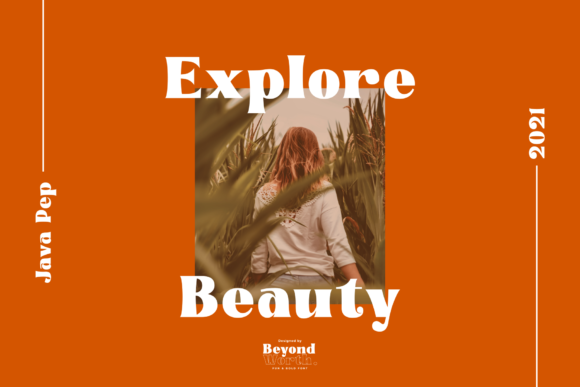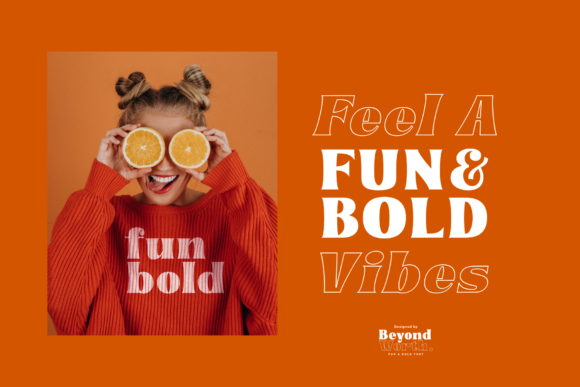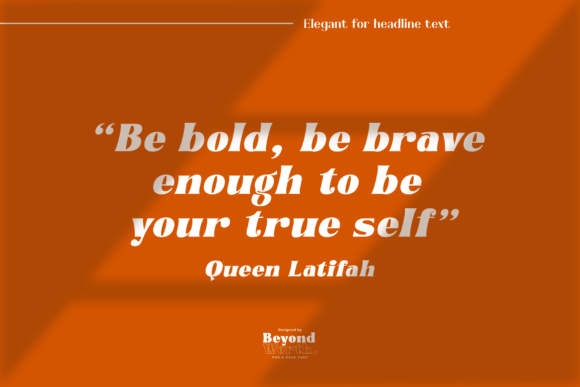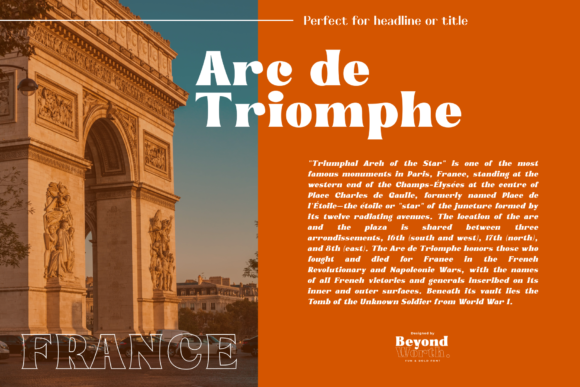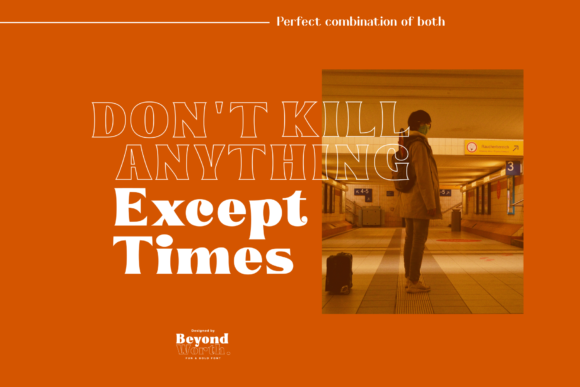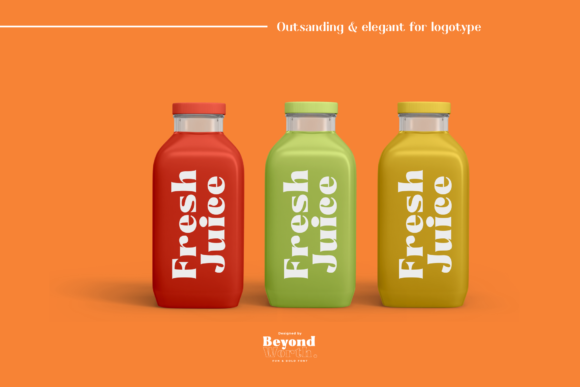
Beyond Worth Font: Elevate Your Designs with Elegance and Boldness
Are you tired of using the same old fonts in your designs? Look no further than Beyond Worth, an elegant and bold serif font that’s sure to take your creations to the next level. With its incredibly versatile style, Beyond Worth is perfect for designers and crafters who want to add a touch of sophistication and glamour to their work.
The Perfect Font for Wedding Invitations and Stationery
Beyond Worth is a match made in heaven for wedding invitations, stationery, and other formal designs. Its elegant serif lines and bold typography evoke a sense of luxury and refinement, making it perfect for couples who want to make a statement with their wedding stationery. Whether you’re designing bespoke wedding invites, save-the-date cards, or thank-you notes, Beyond Worth is sure to impress.
Unleash Your Creativity on Social Media
But Beyond Worth isn’t just limited to print designs. Its bold and eye-catching style also makes it perfect for social media posts, where you need to stand out from the crowd. Use Beyond Worth to create stunning graphics, quotes, and promotions that will grab the attention of your followers and leave a lasting impression. Whether you’re a blogger, influencer, or business owner, Beyond Worth is the perfect font to elevate your social media game.
What Makes Beyond Worth So Special?
So, what sets Beyond Worth apart from other fonts on the market? Here are just a few reasons why designers and crafters are falling in love with this incredible font:
- Versatility: Beyond Worth is an incredibly versatile font that can be used in a wide range of designs, from formal wedding invitations to bold social media posts.
- Elegance: With its classic serif lines and refined typography, Beyond Worth exudes elegance and sophistication, making it perfect for high-end designs.
- Boldness: But Beyond Worth isn’t just elegant – it’s also bold and eye-catching, making it perfect for designs that need to stand out from the crowd.
How to Use Beyond Worth in Your Designs
Ready to fall in love with Beyond Worth? Here are a few tips for incorporating this stunning font into your designs:
- Pair it with contrasting fonts: For maximum impact, pair Beyond Worth with contrasting fonts that complement its elegant serif lines.
- Experiment with colors: Don’t be afraid to experiment with different colors and textures to add depth and interest to your designs.
- Play with layout: Beyond Worth is a versatile font that can be used in a wide range of layouts, from classic and symmetrical to bold and asymmetrical.
Get Creative with Beyond Worth
Beyond Worth is more than just a font – it’s a design solution that can help you elevate your creations and take your designs to the next level. Whether you’re a seasoned designer or a crafty DIY enthusiast, Beyond Worth is the perfect choice for anyone who wants to add a touch of elegance and sophistication to their work.
In conclusion, Beyond Worth is an elegant and bold serif font that’s perfect for designers and crafters who want to create stunning wedding invitations, beautiful stationery art, eye-catching social media posts, and much more. With its incredibly versatile style, classic elegance, and bold typography, Beyond Worth is sure to become your go-to font for all your design needs.